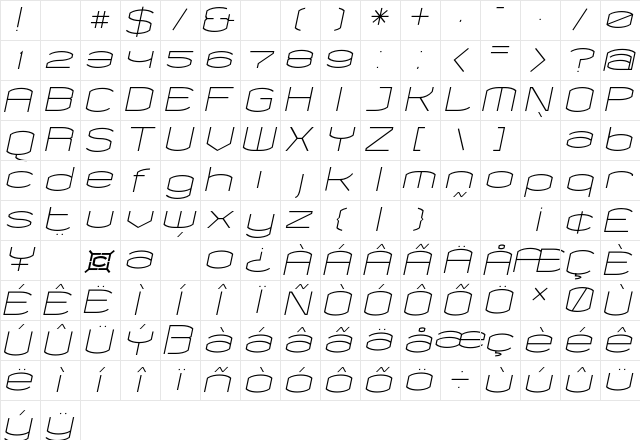
Chord RegularItalic Free Font
Chord RegularItalic
Design Context for Chord
Chord is a composed and adaptable typeface that performs quietly and consistently across a wide range of design contexts. The slanted form adds forward momentum and visual energy.